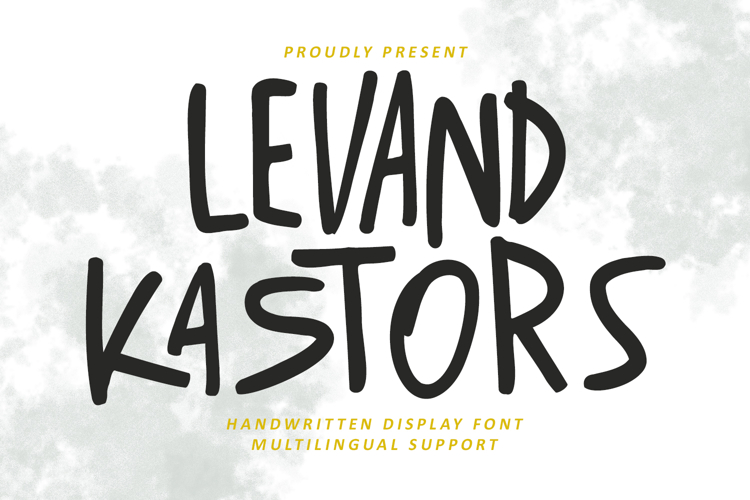
Levand Kastors is a display handwritten font. With medium stroke, fun character with a bit of ligatures. To give you an extra creative work. Levand Kastors font support multilingual more than 100+ language. This font is good for logo design, Social media, Movie Titles, Books Titles, a short text even a long text letter and good for your secondary text font with sans or serif. Make a stunning work with Levand Kastors font.